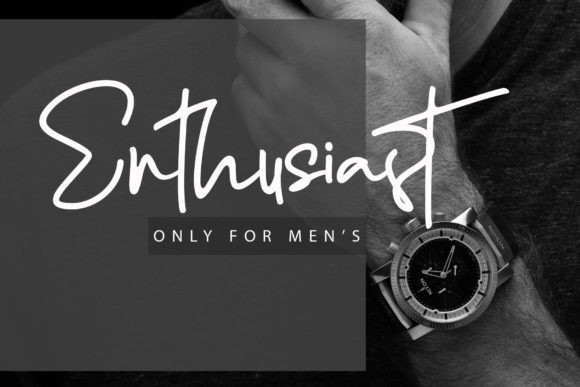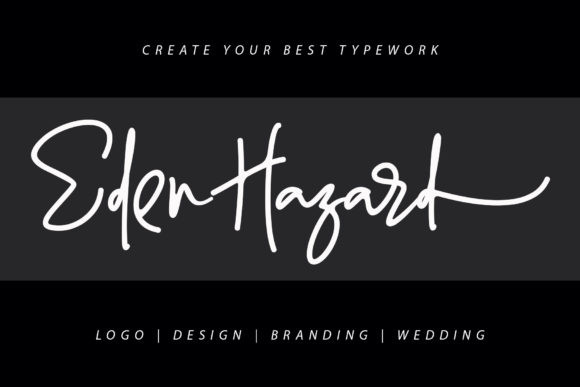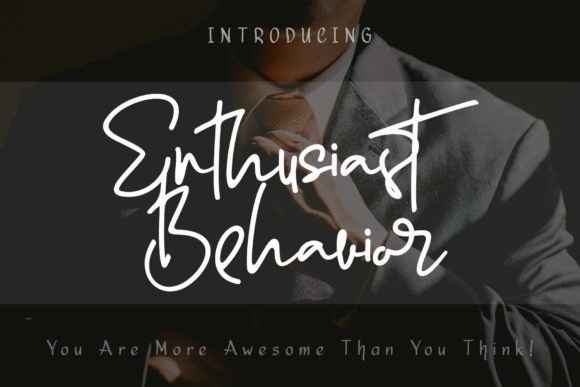
Enthusiast Behavior Font
The Enthusiast Behavior is a simple, yet classy typeface. It includes beginning and ending swashes which are perfect for adding a stylish and elegant look to your designs.